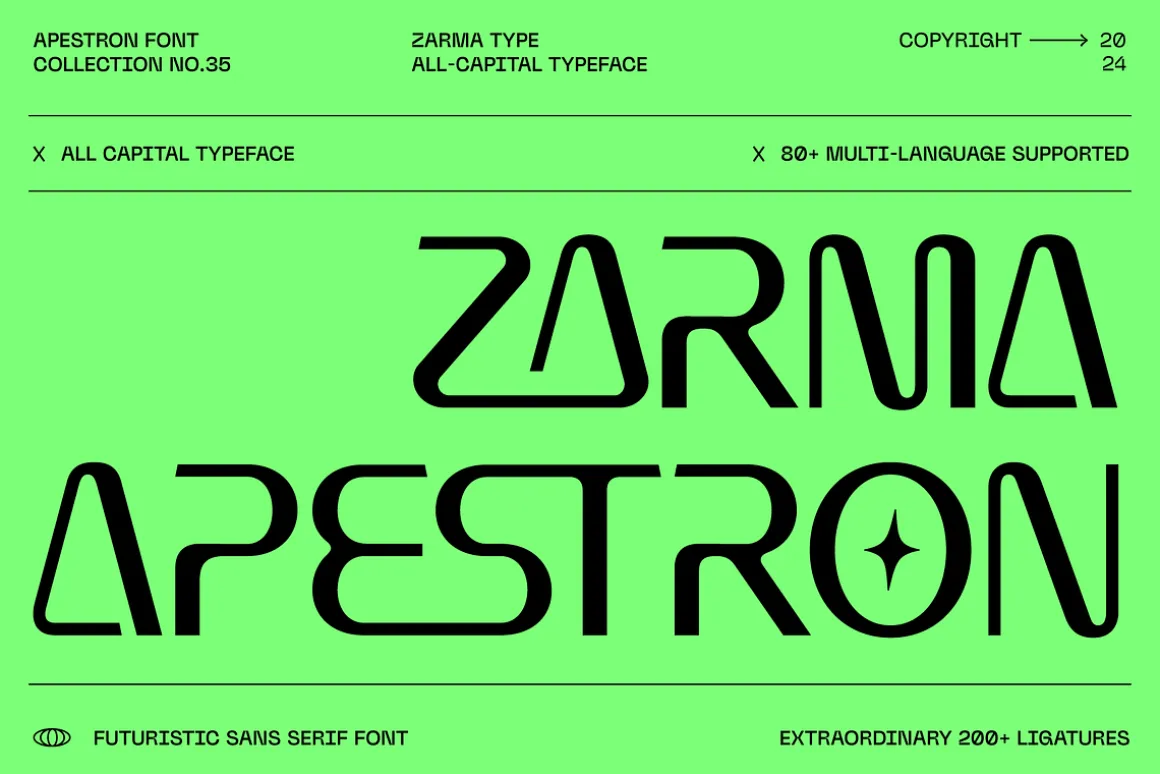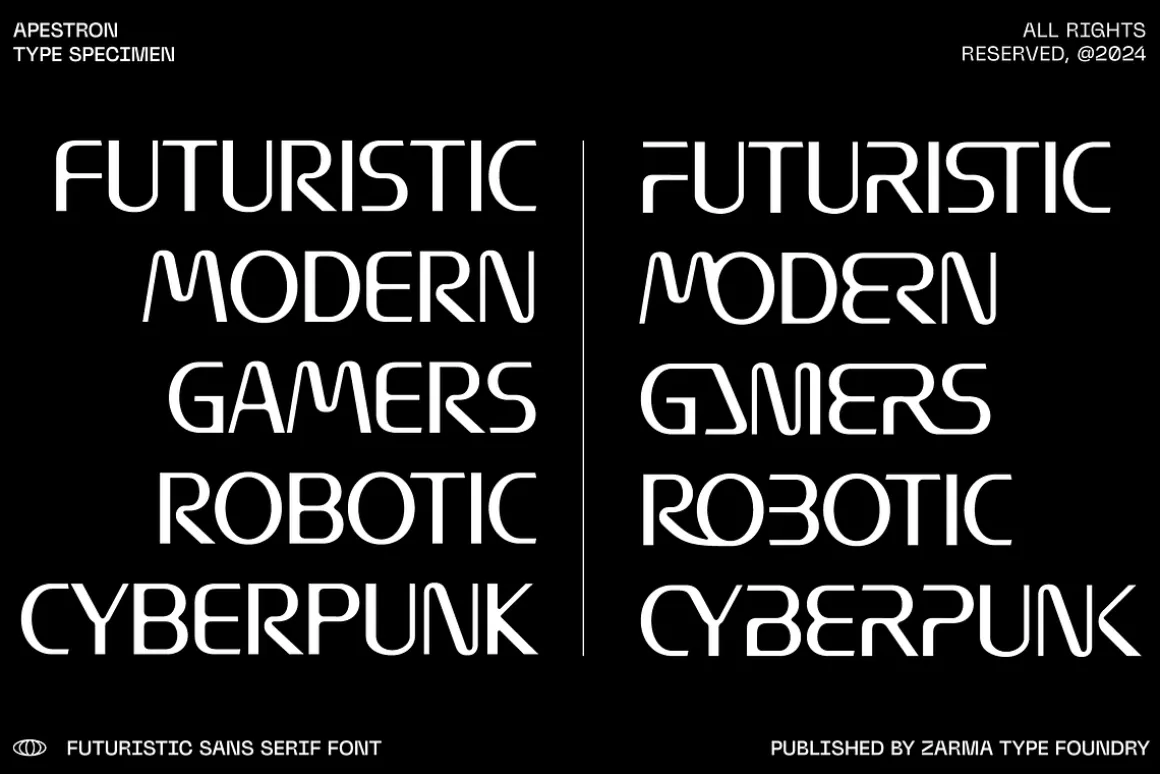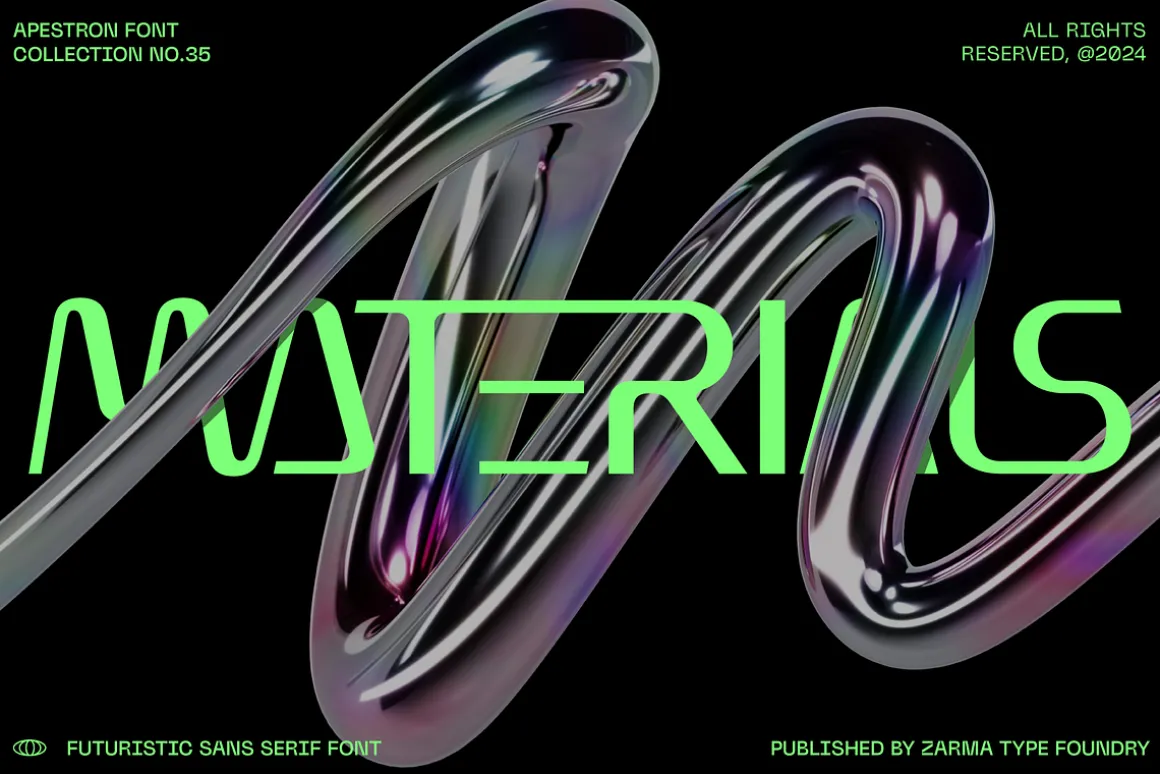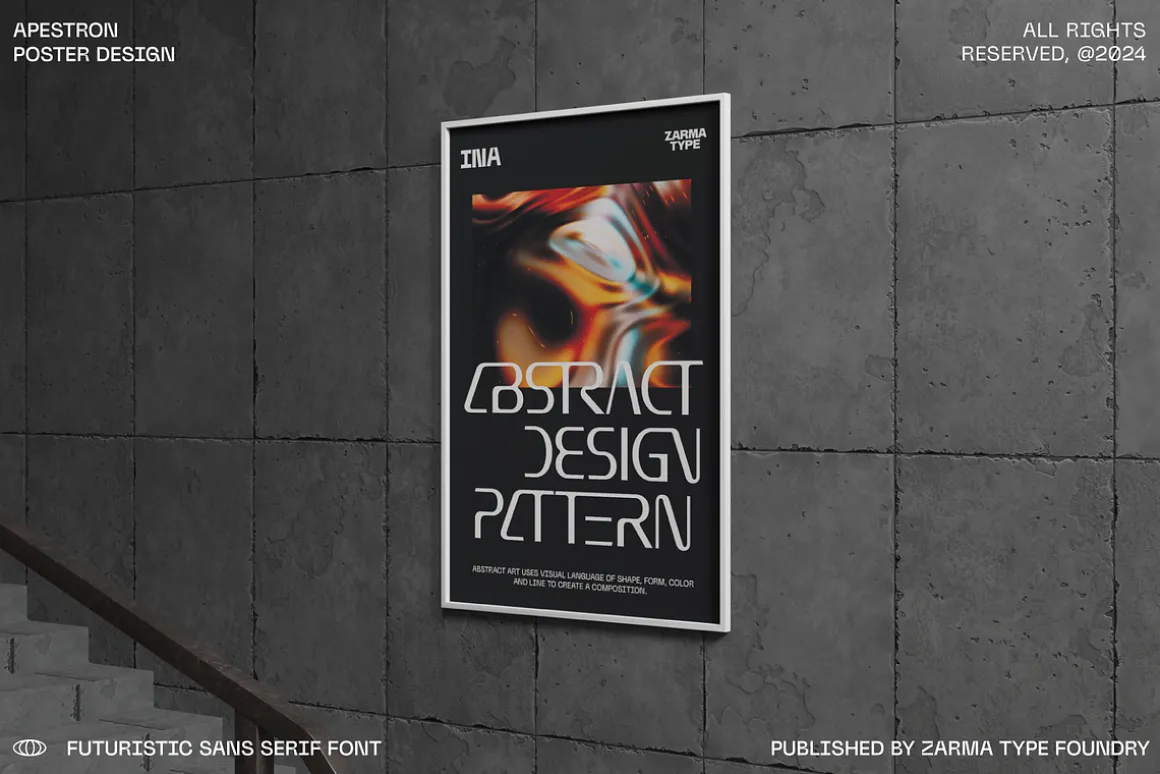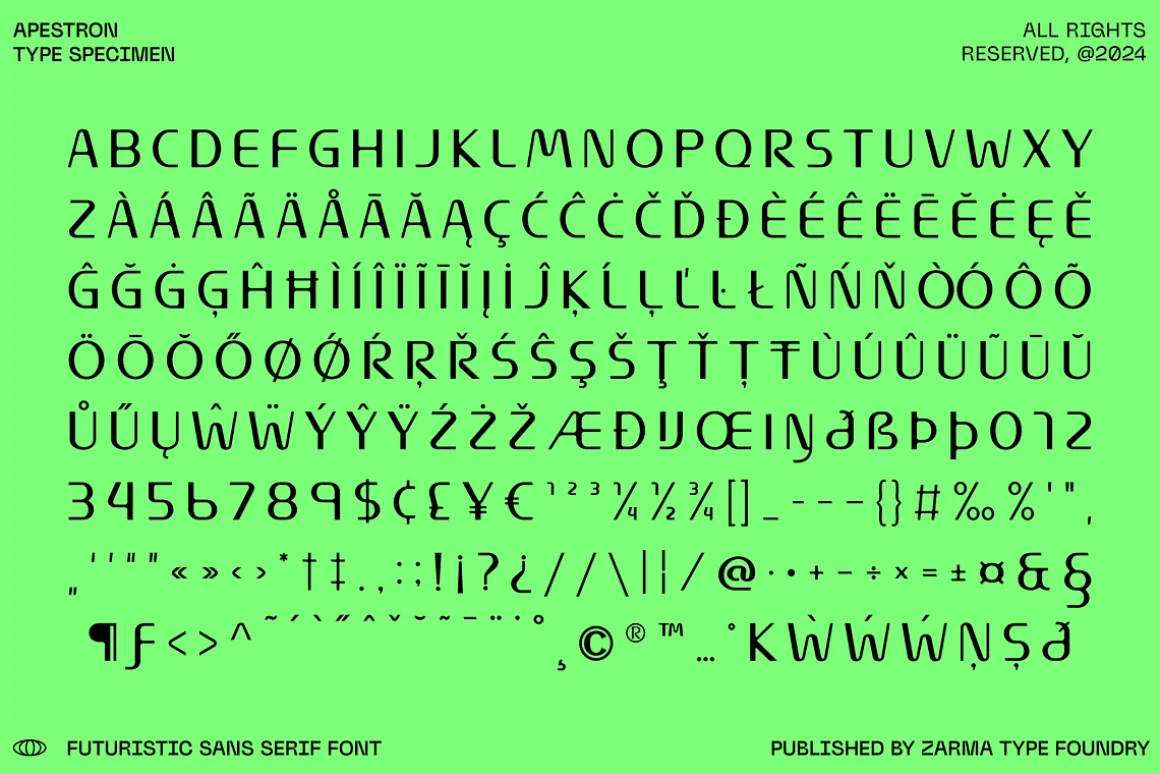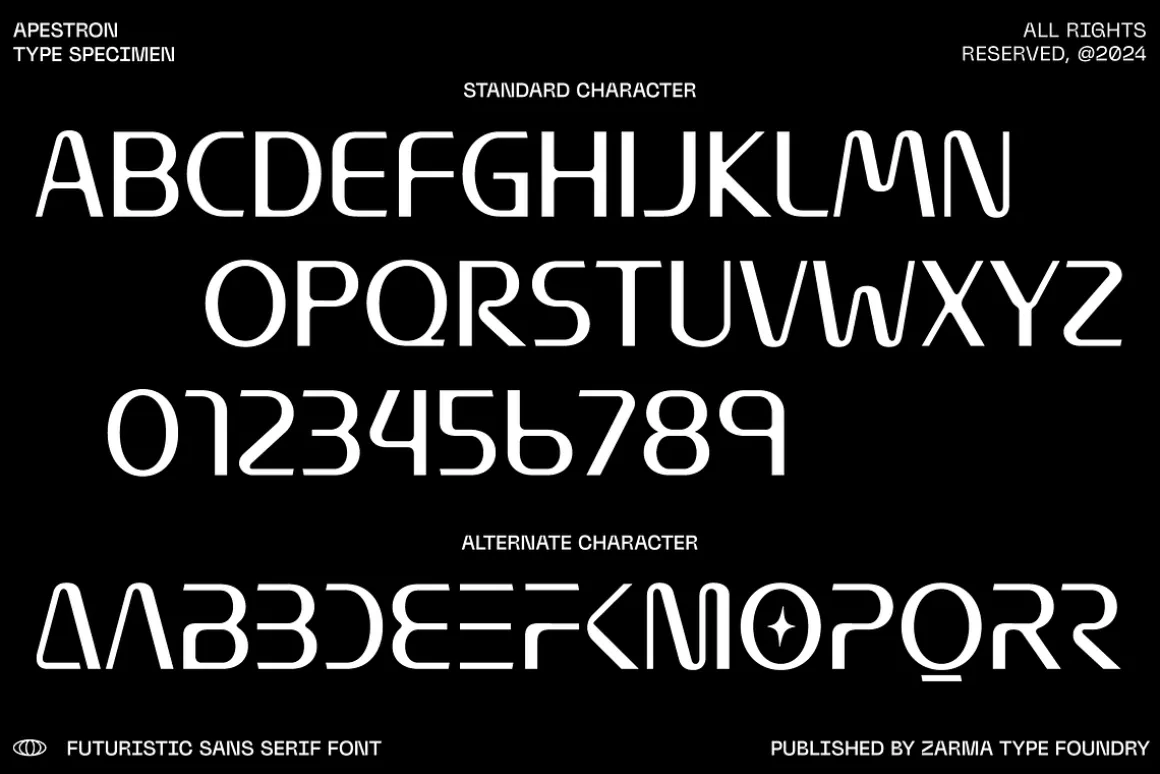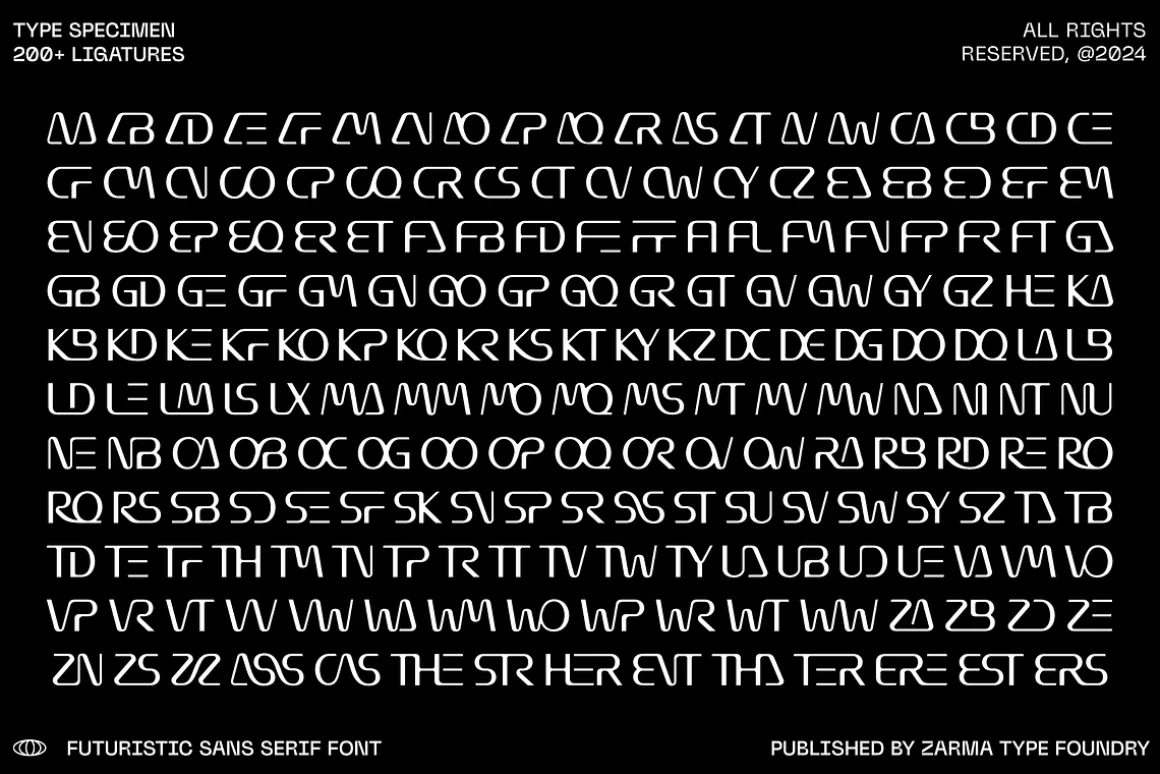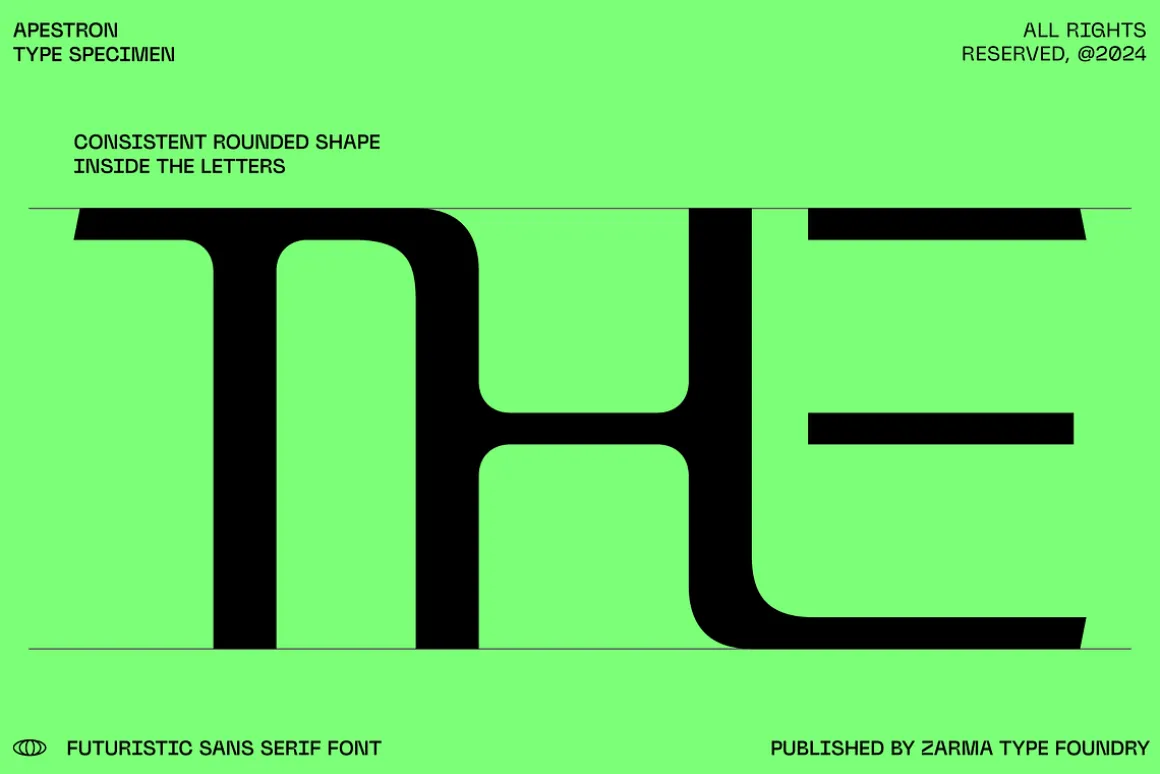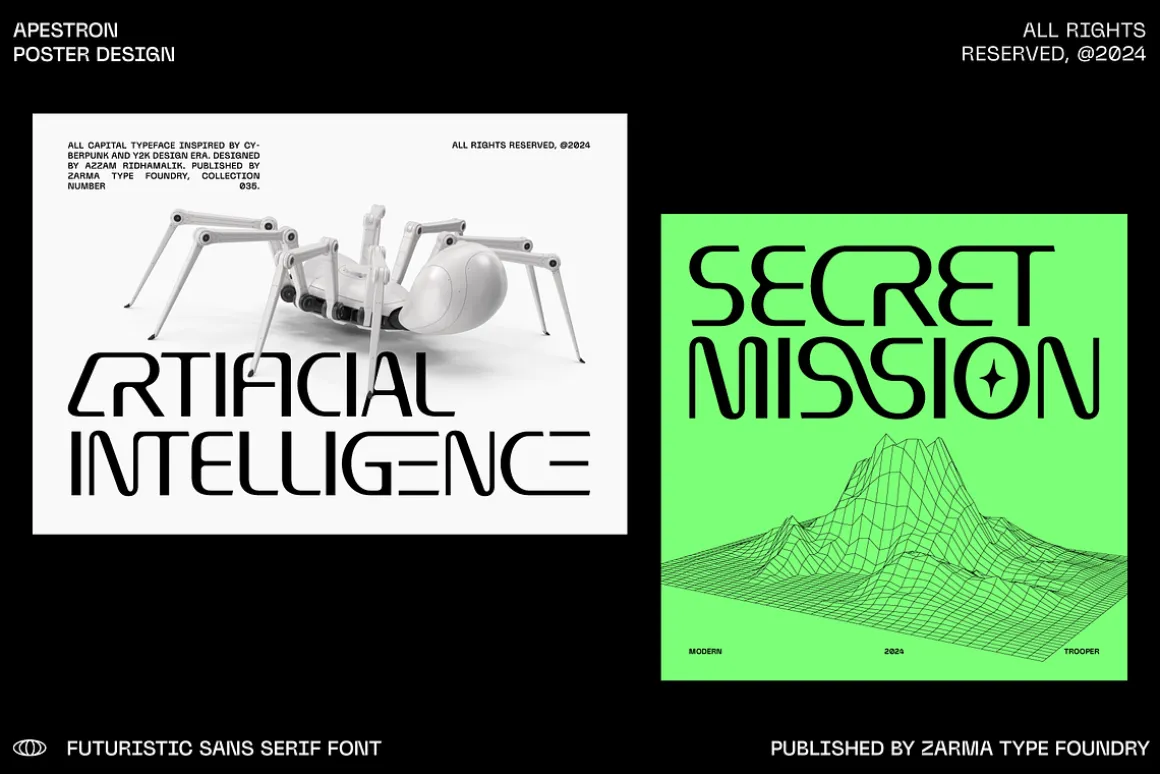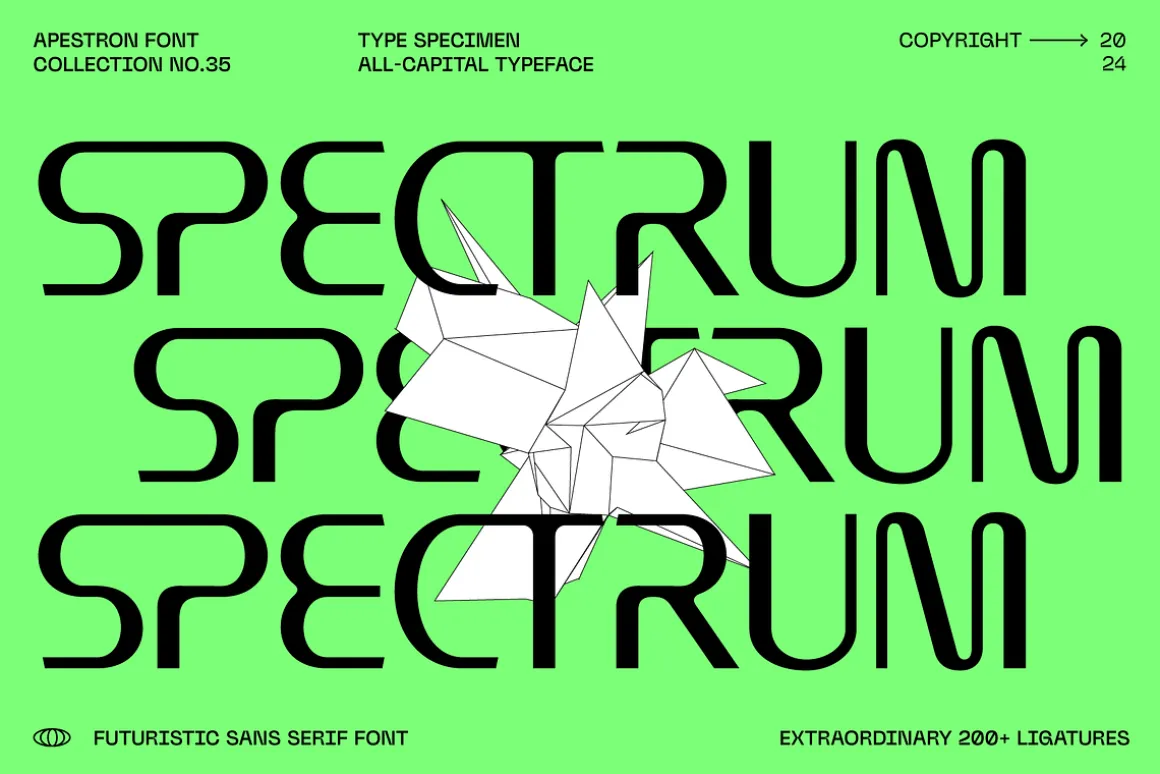
Apestron is a futuristic sans-serif font that brings a sleek and modern aesthetic to your design projects. Professional design with clean lines and consistent stroke weights, making it suitable for various digital and print applications. Despite its futuristic design, the font maintains excellent legibility.
This all-capital typeface is perfect for tech, gaming, and sci-fi themed designs. With over 200 extraordinary ligatures and alternate characters, Apestron offers endless creative possibilities. It supports 80+ languages, making it a versatile choice for designers worldwide. The rounded edges of its characters make it especially suitable for cyberpunk and Y2K designs, adding a unique, modern touch to your work.
- 200+ Extra Ordinary Ligatures
- Extended Latin
- Multilanguage